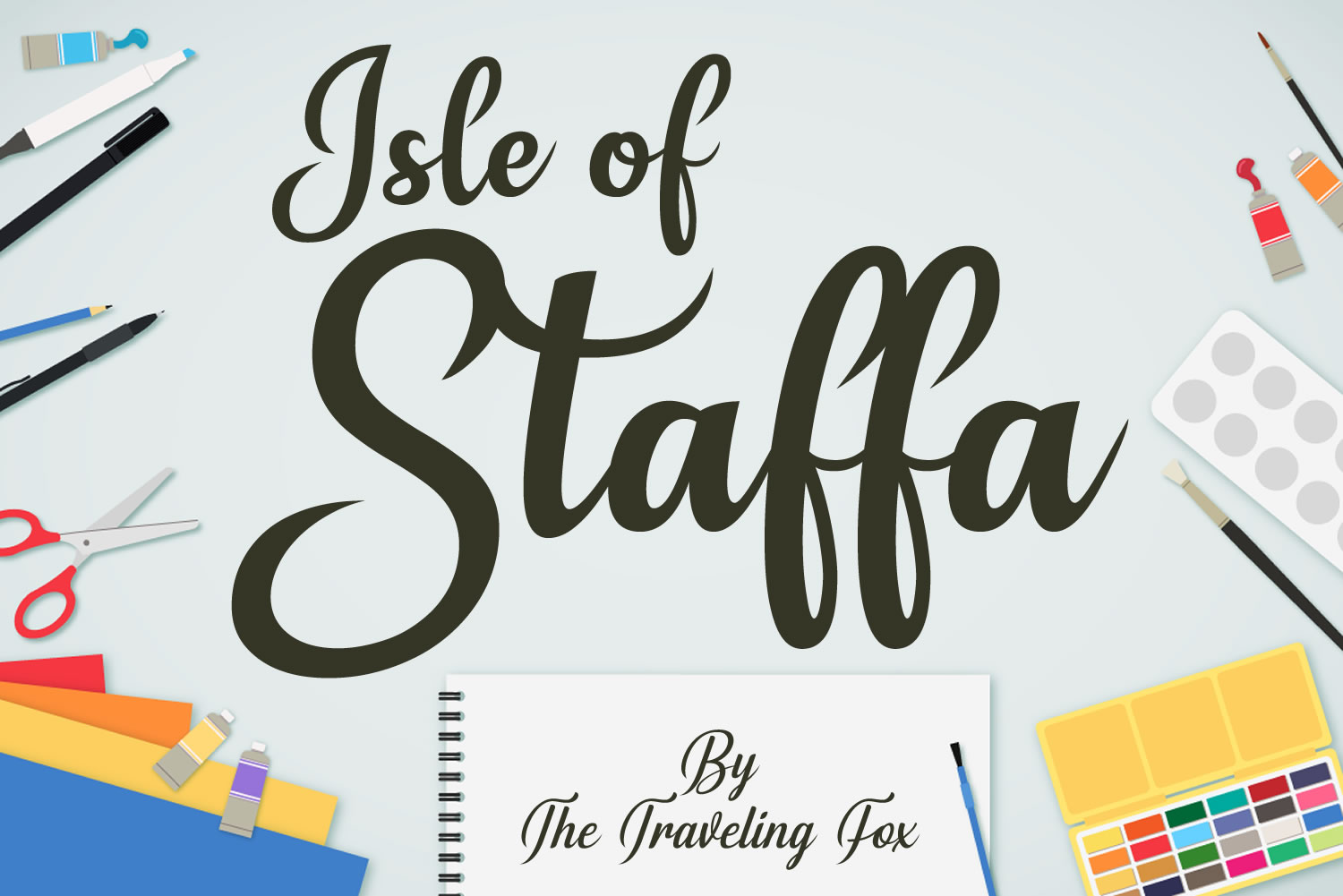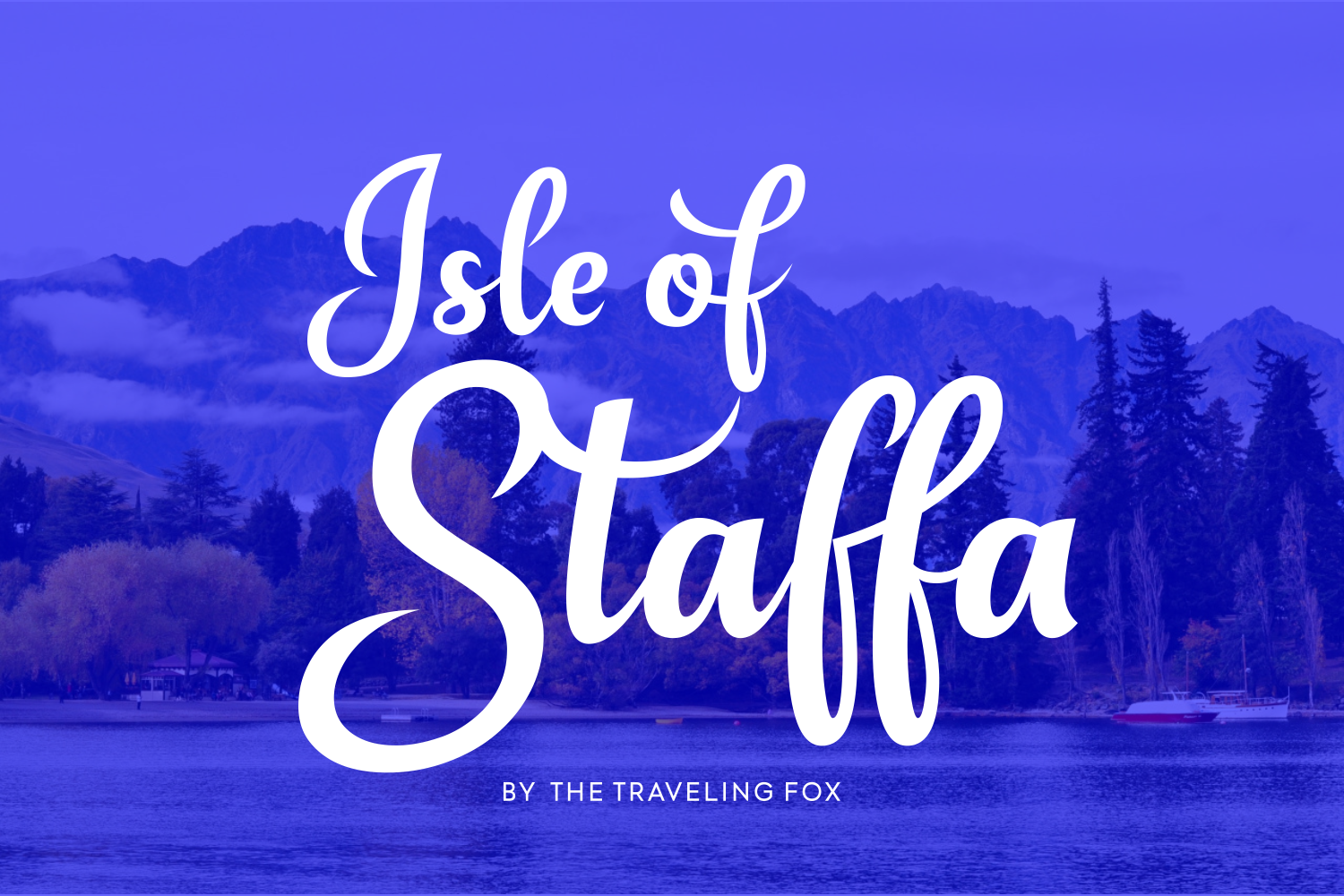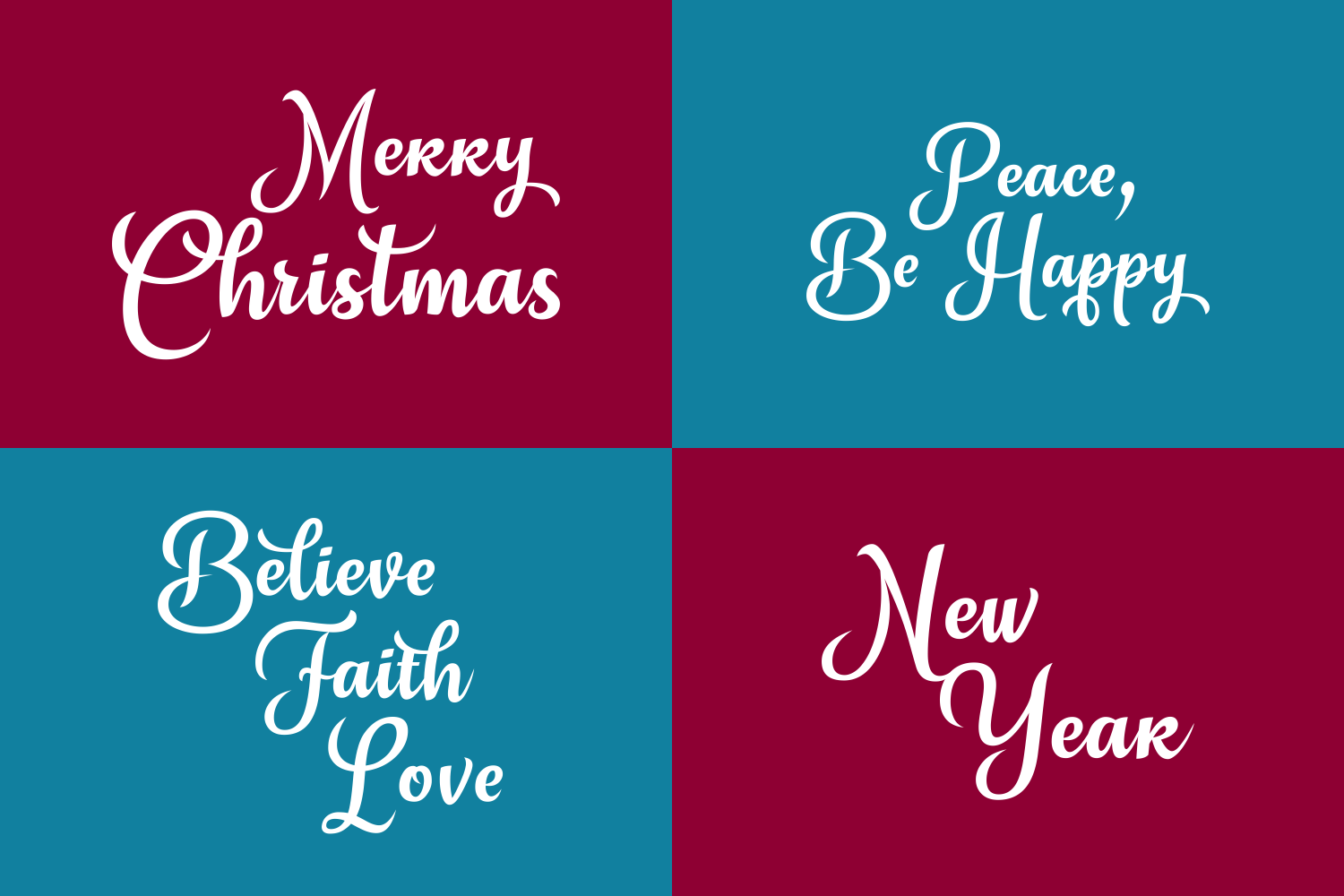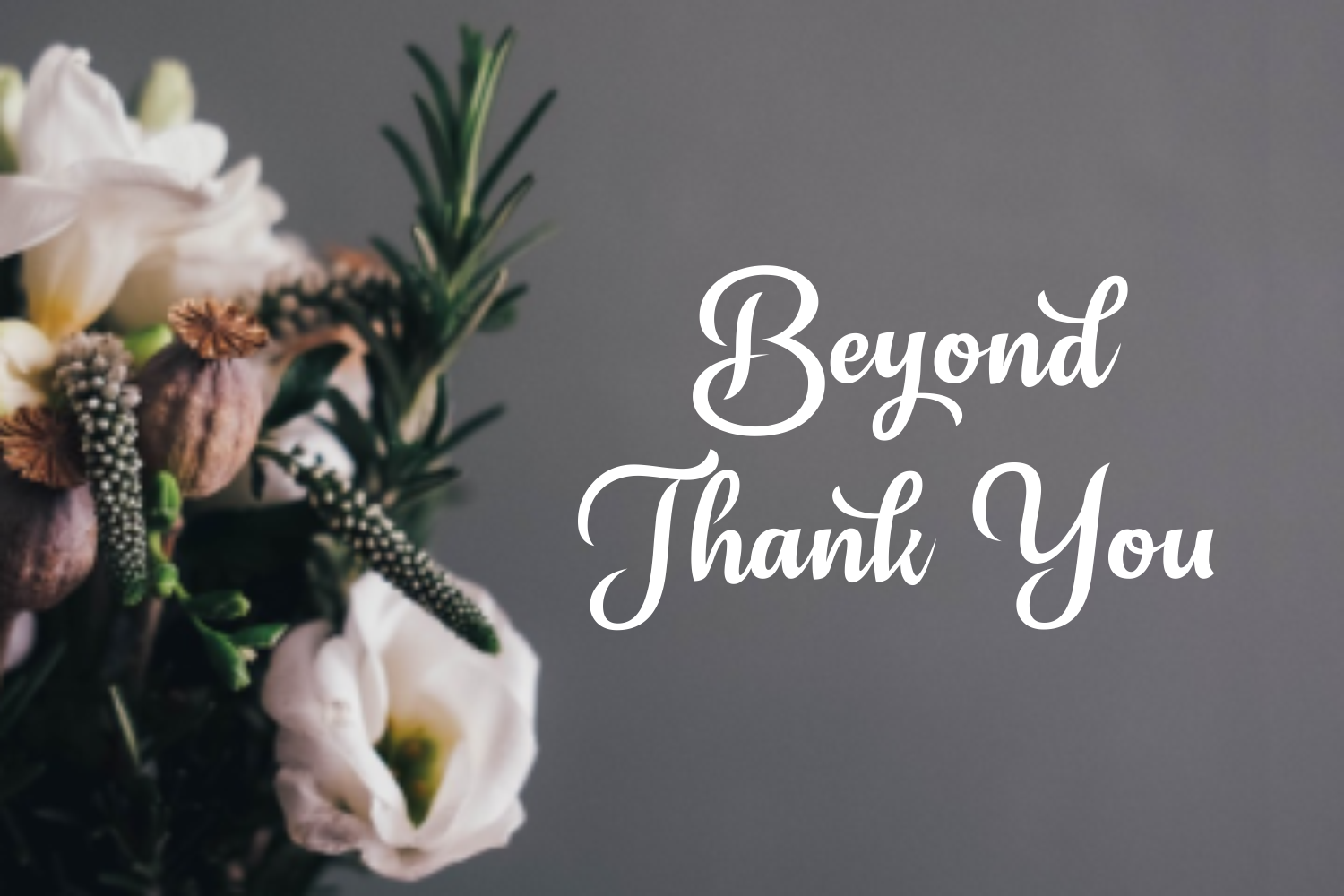
Isle of Staffa Font
About Isle of Staffa Font
Isle of Staffa is a strong handwritten script.
It features characters with thick solid lines and sharp endings, creating a unique look & feel.
Isle of Staffa is extremely well-suited for a huge range of projects. It works well for both craft & corporate projects and looks great on screen and printed.